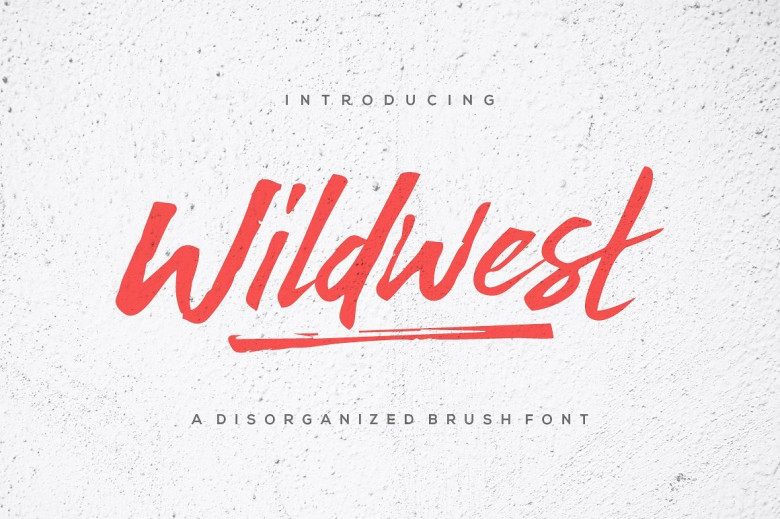
Wildwest Brush Font
Introducing Wildwest Brush Font! Wildwest designed by trustha, this is a premium font, are sold on creativemarket, but it was great, it is free today for download. Wildwest is a brush font. Wildwest a very good for logotype, website header, fashion design, name tag, quotes, labels, t-shirts, packaging and any more.